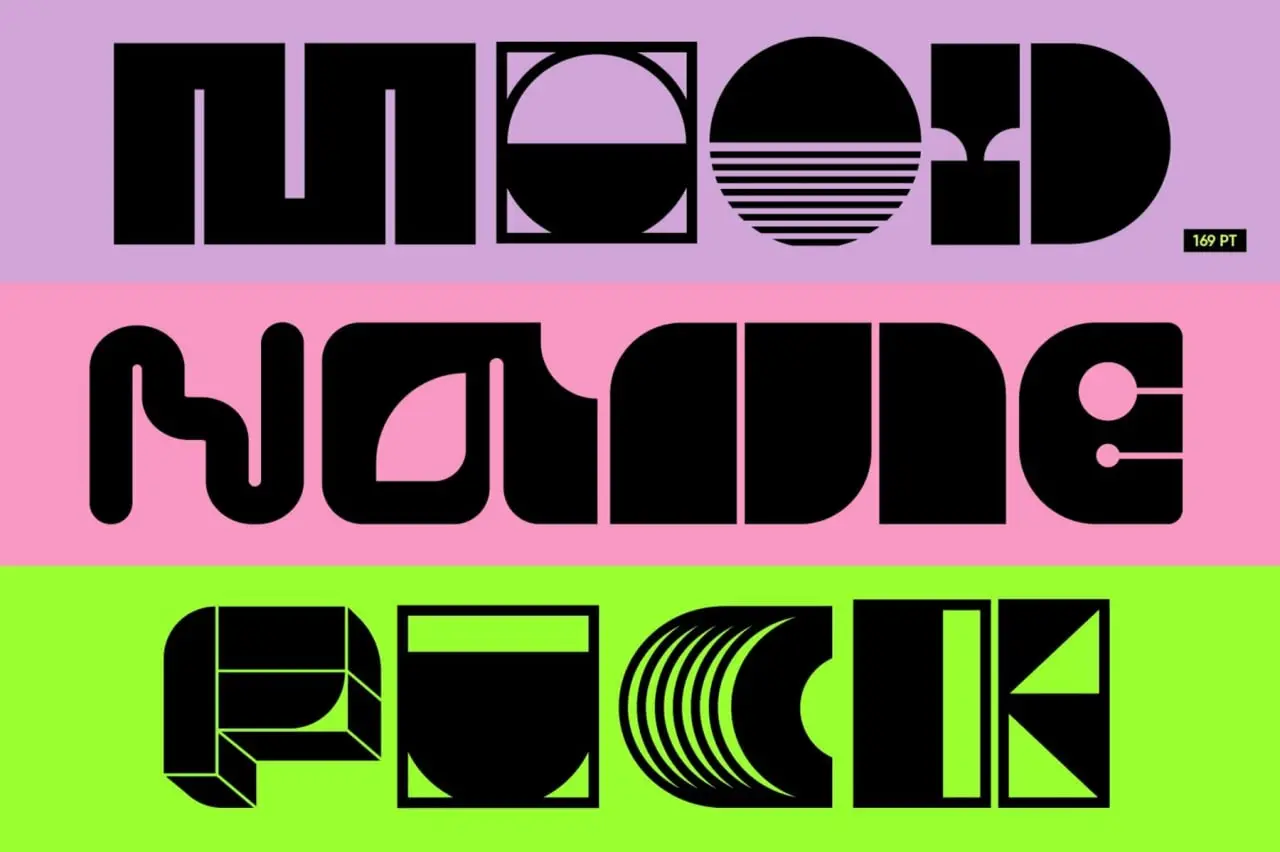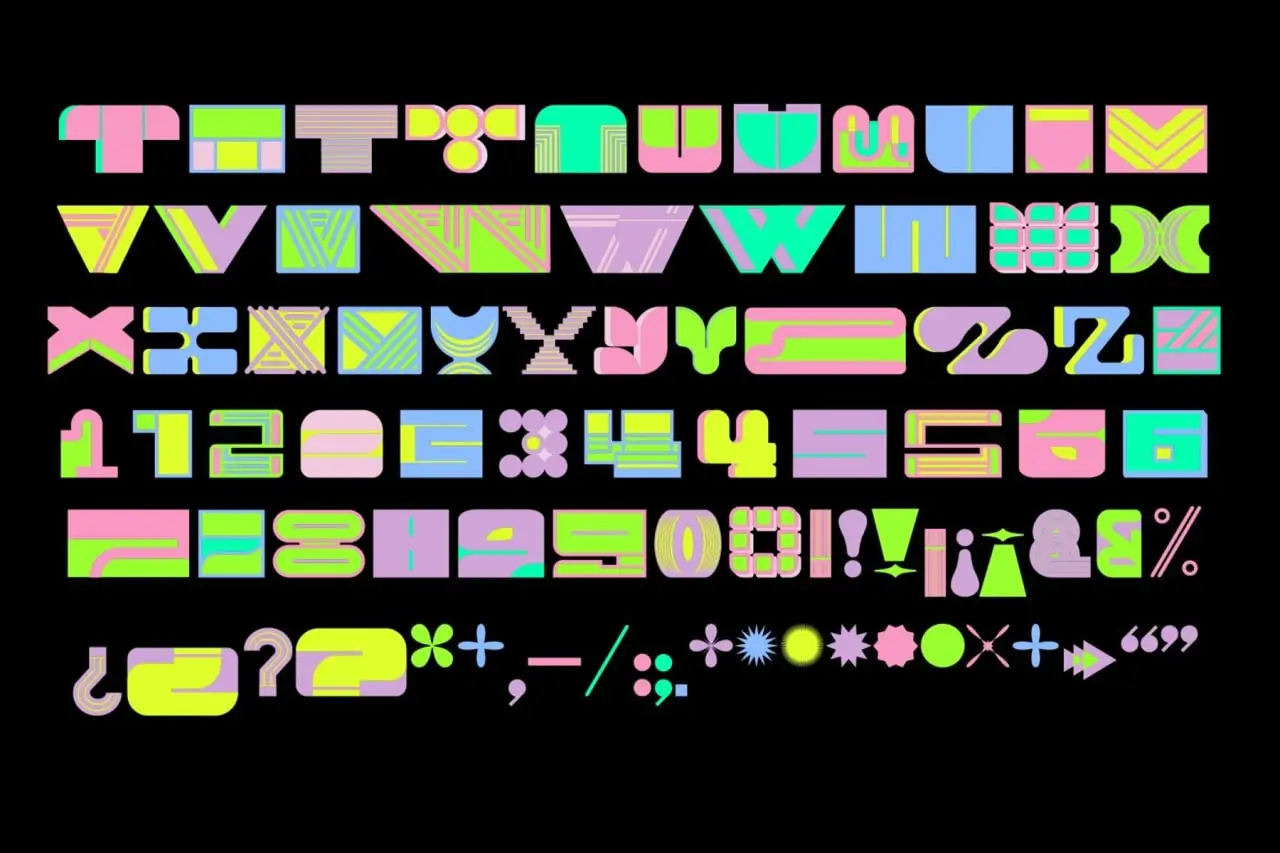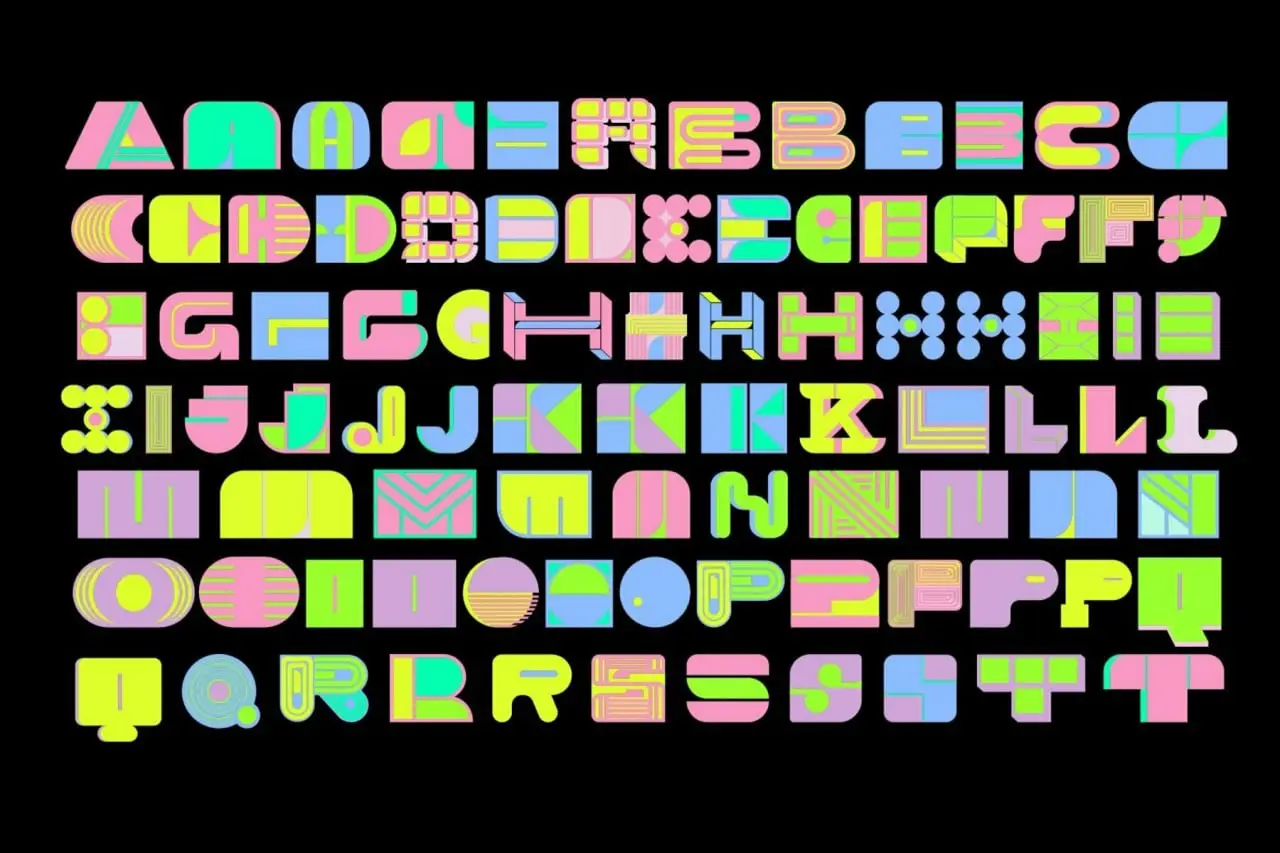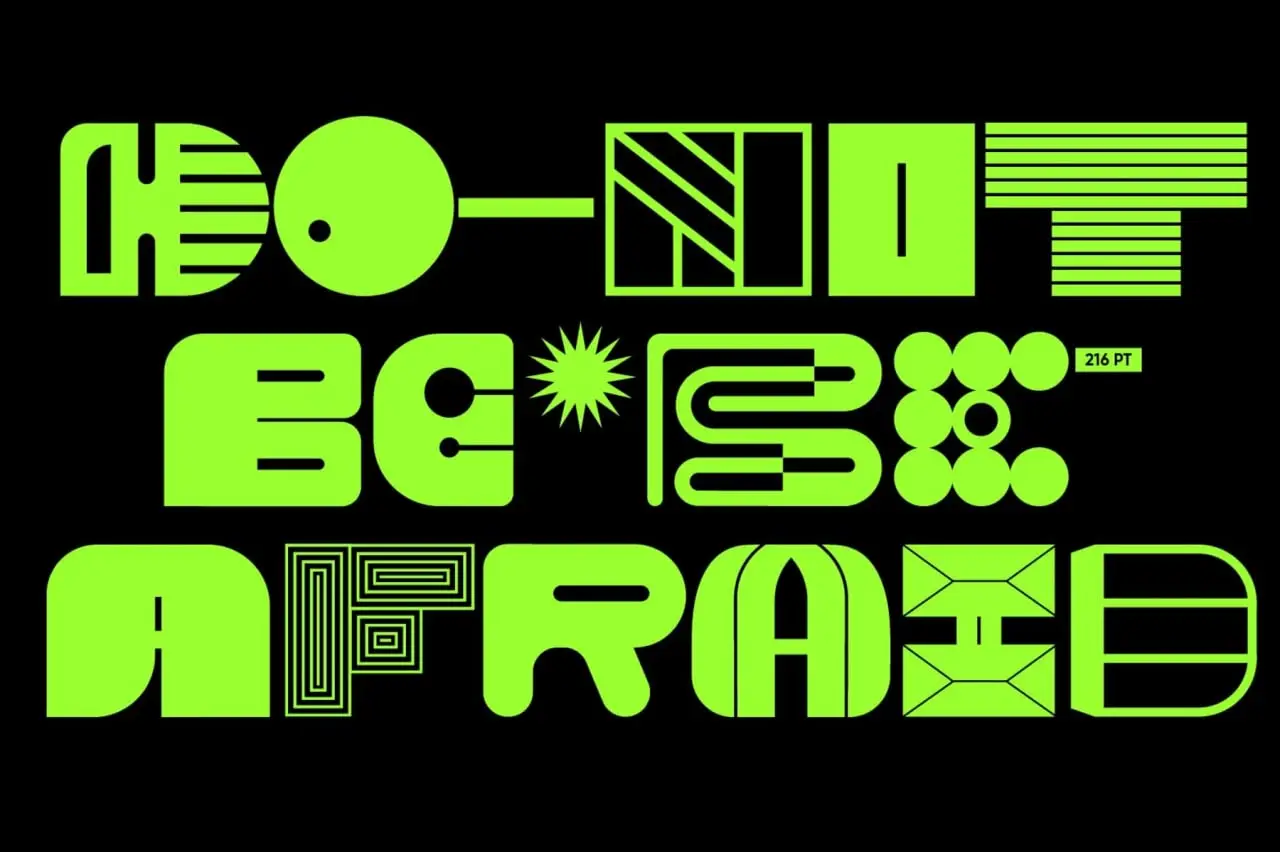
Yaisalinas-Cleo Font
The Yaisalinas-Cleo Font is a beautifully crafted typeface that combines elegance with versatility. Perfect for a variety of applications, this font can be used in branding, logo design, web content, and print materials.
• Stylish and modern design
• Multiple weights available for diverse usage
• Clear legibility at various sizes
• Ideal for creating eye-catching headlines and titles
• Use in both digital and print projects for a cohesive look
• Pair with complementary fonts for added depth in designs